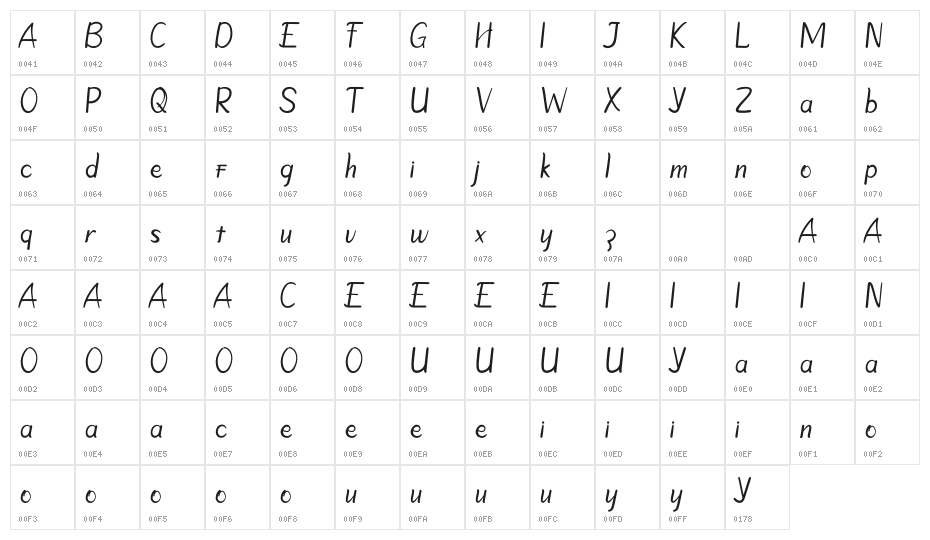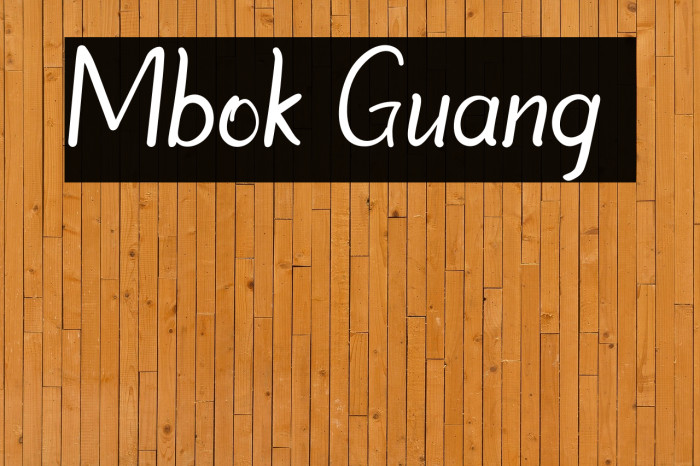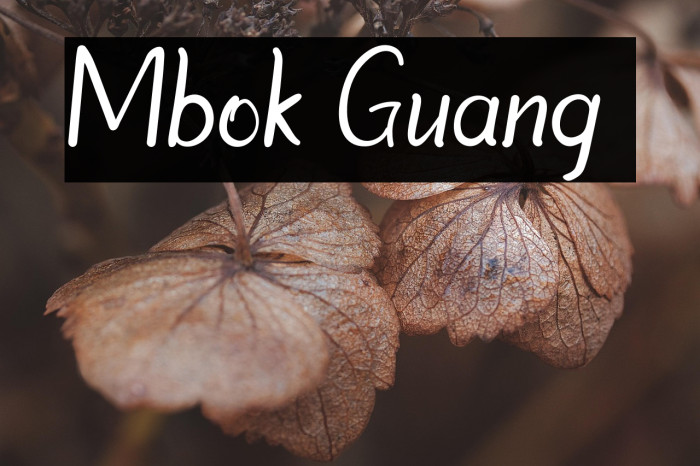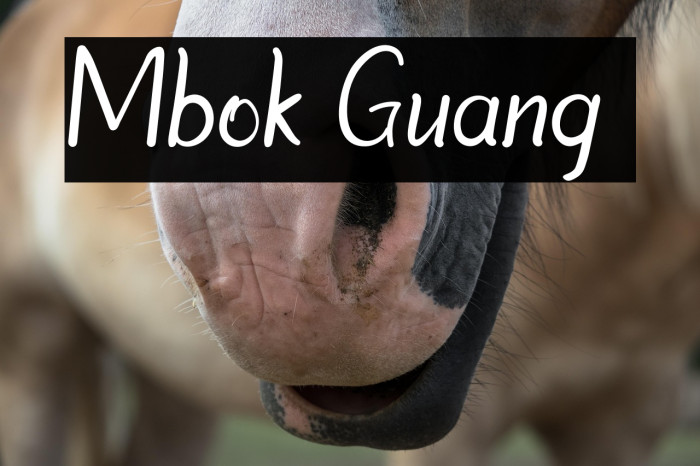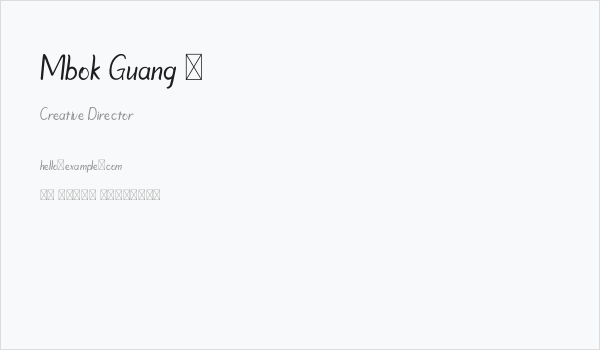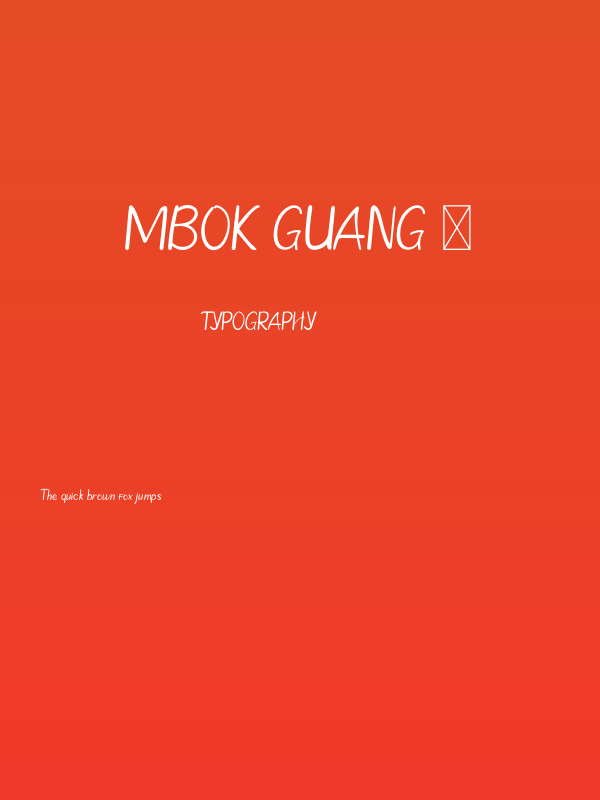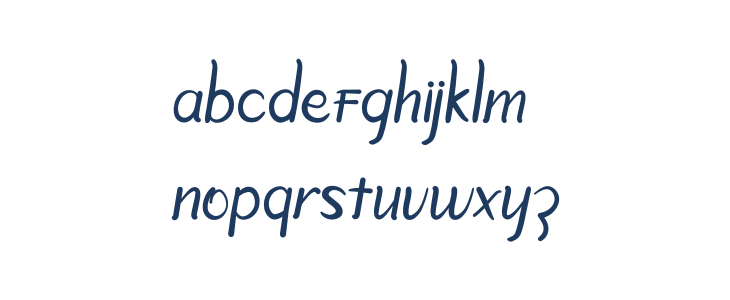
Mbok Guang 2 Font
Mbok Guang 2 Description
This font features a casual, handwritten style with a playful and informal appearance. The uppercase letters are slightly slanted, giving a dynamic and energetic feel. The lowercase letters maintain a consistent flow, with some characters like 'g' and 'y' having distinctive loops. The overall design is smooth and rounded, contributing to its approachable and friendly look. The font is well-suited for projects that require a personal touch or a creative flair. It is versatile enough to be used in various contexts, from greeting cards to informal branding.
| Proposed Projects | Ideal for greeting cards, informal branding, creative projects, and personal invitations. |